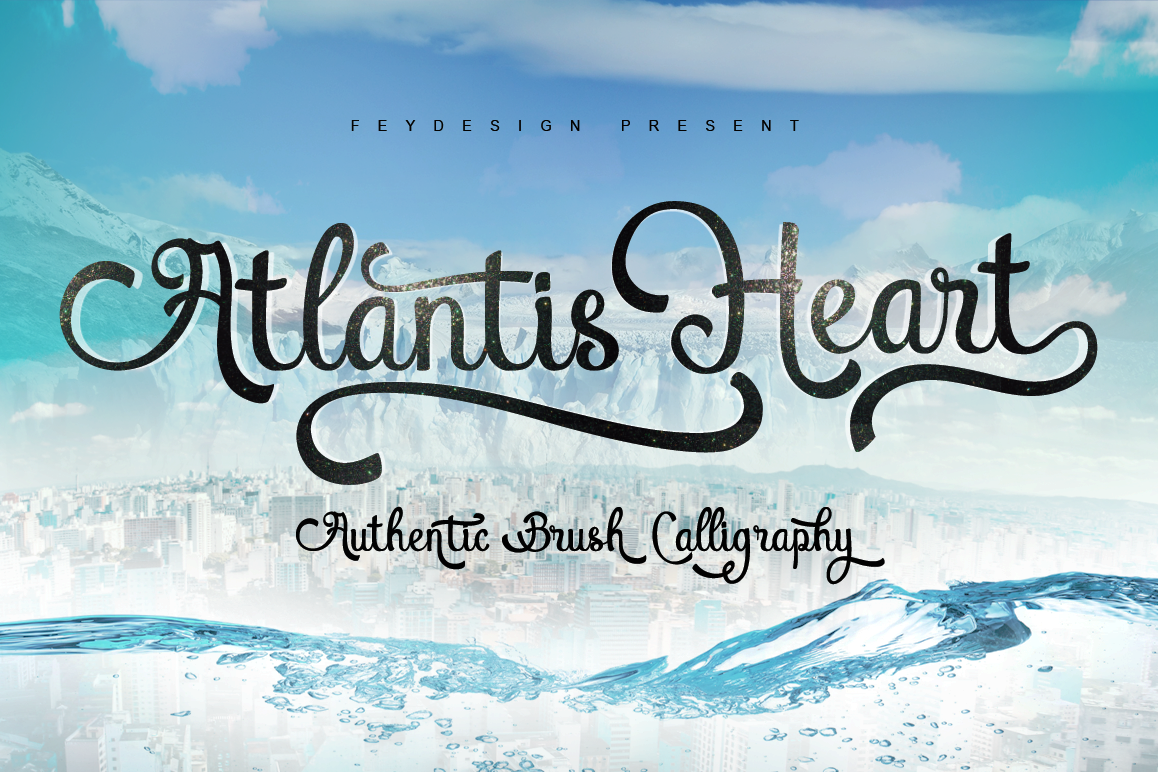
Atlantis Heart
Atlantis Heart Swashes.
Atlantis Heart.
Atlantis Heart Brush Font
Atlantis Heart Brush Font is Authentic calligraphy style, Suitable for design, element design, wedding, event, t-shirt, logo, badges, sticker, and awesome work, etc...
Feauture Of The Font:
- Combination alternative ligature fonts
- Standard Ligatures, Stylistic Set, Multilanguage Characters
- Authentic Calligraphy Typeface
- Multilanguage Support
- Unique style fonts